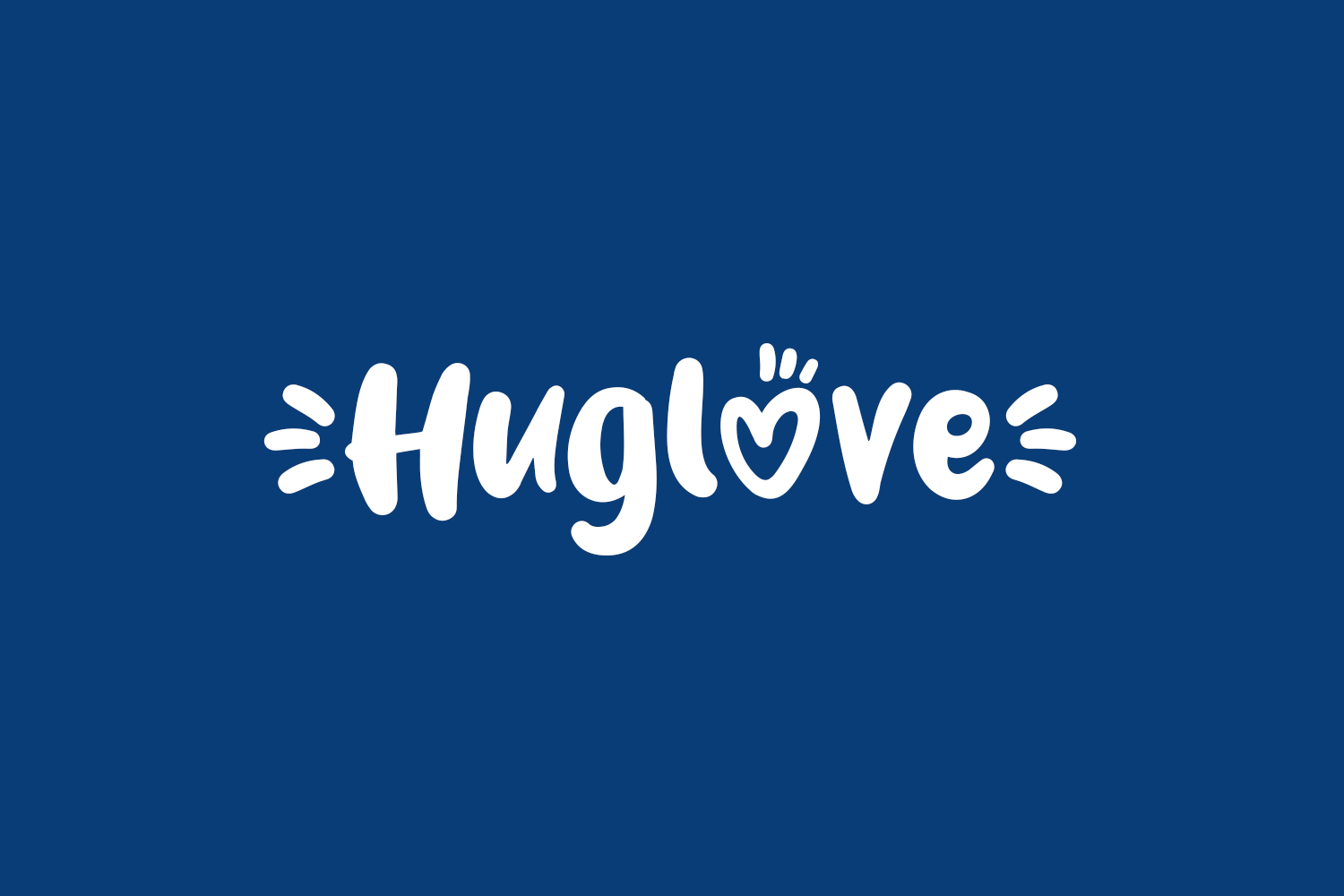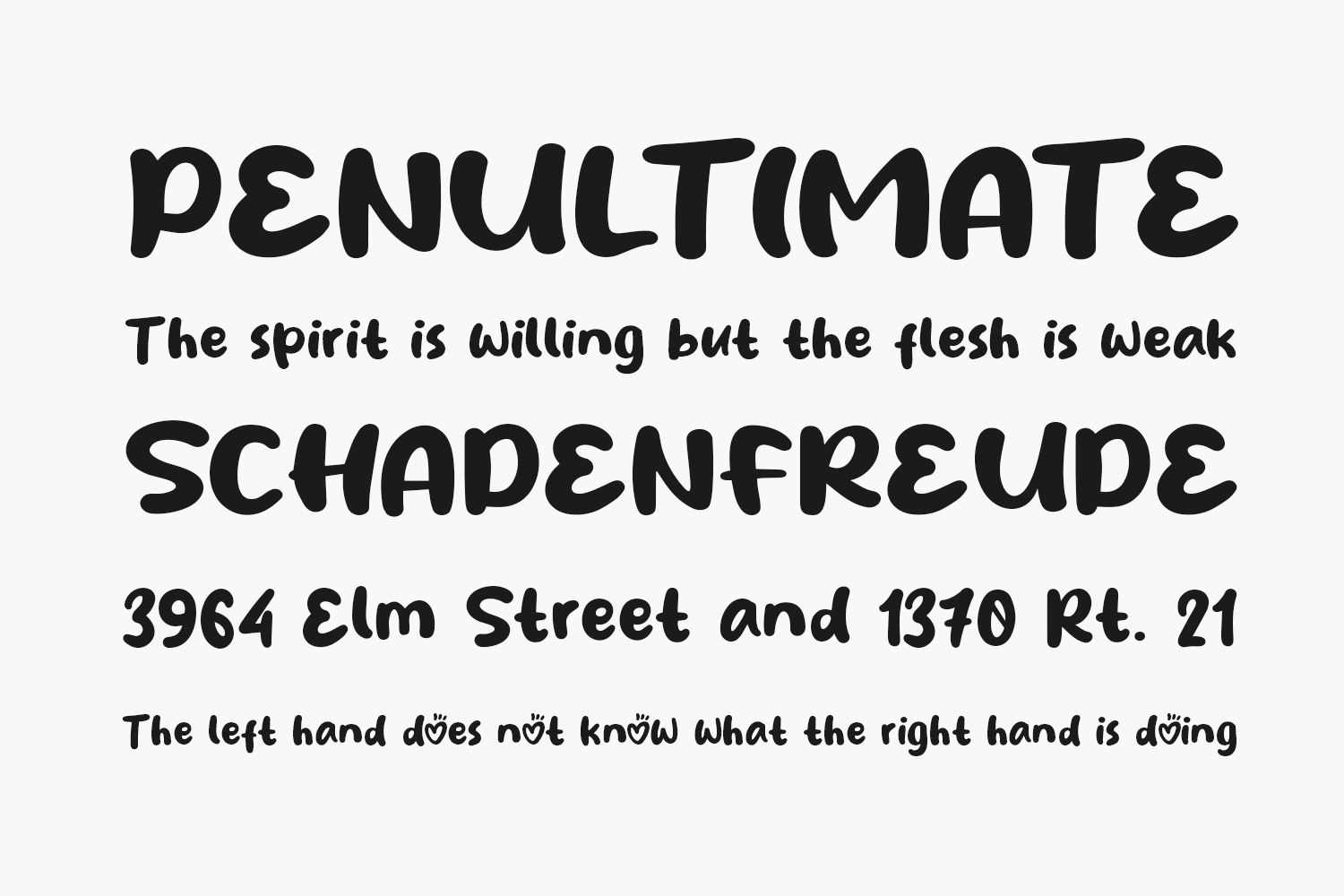
Huglove Free Font is a modern and elegant display font that adds a touch of sophistication to any project. With its sleek lines and fancy flourishes, it’s perfect for creating eye-catching headlines, posters, and other design elements. The font features a unique style with a mix of thick and thin lines that gives it an elegant look and feels, making it perfect for high-end designs, fashion and luxury brands, wedding invitations and more. Whether you’re looking to make a bold statement or simply want to add a touch of luxury to your text, Huglove is the perfect choice for any project.